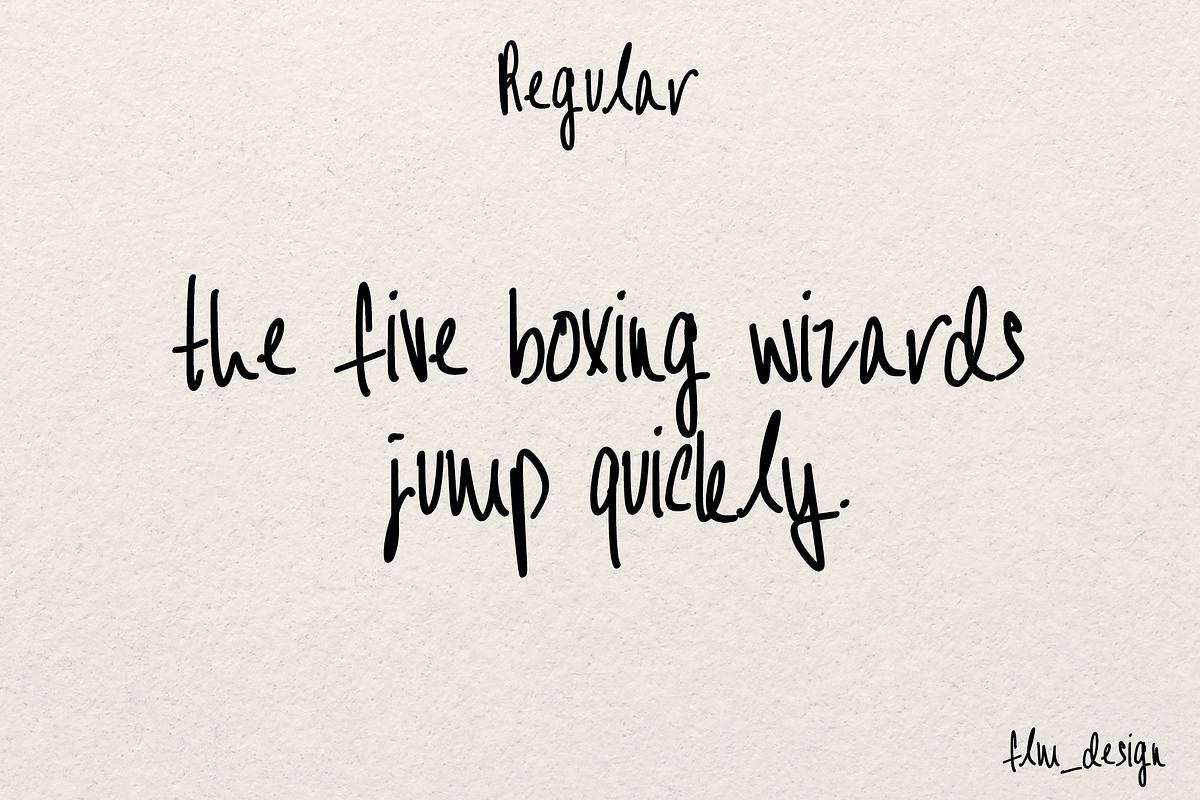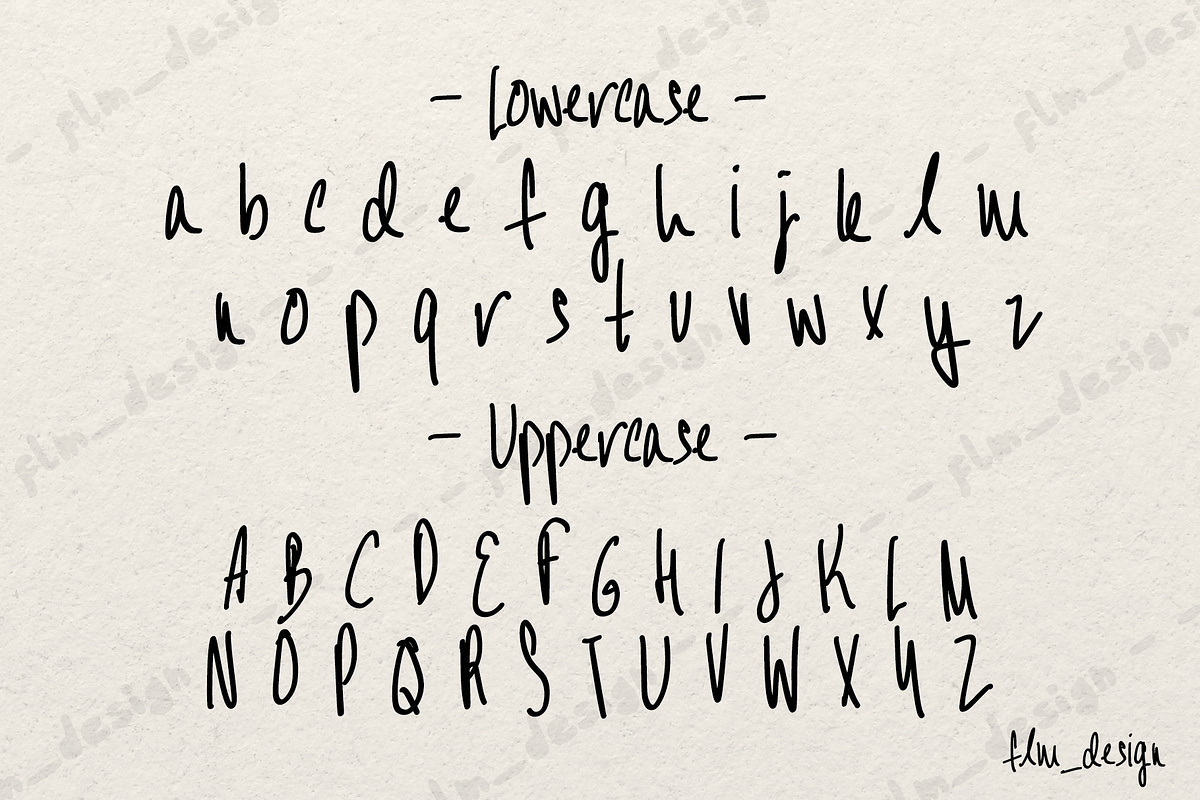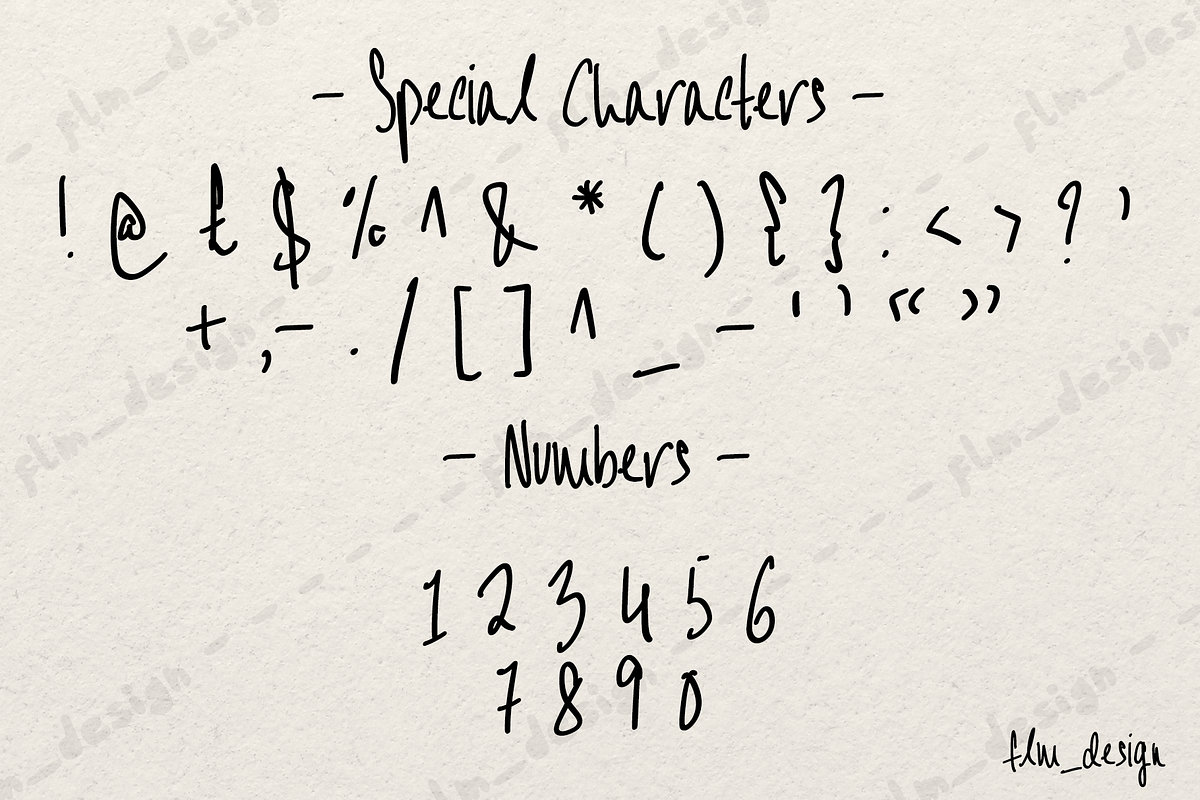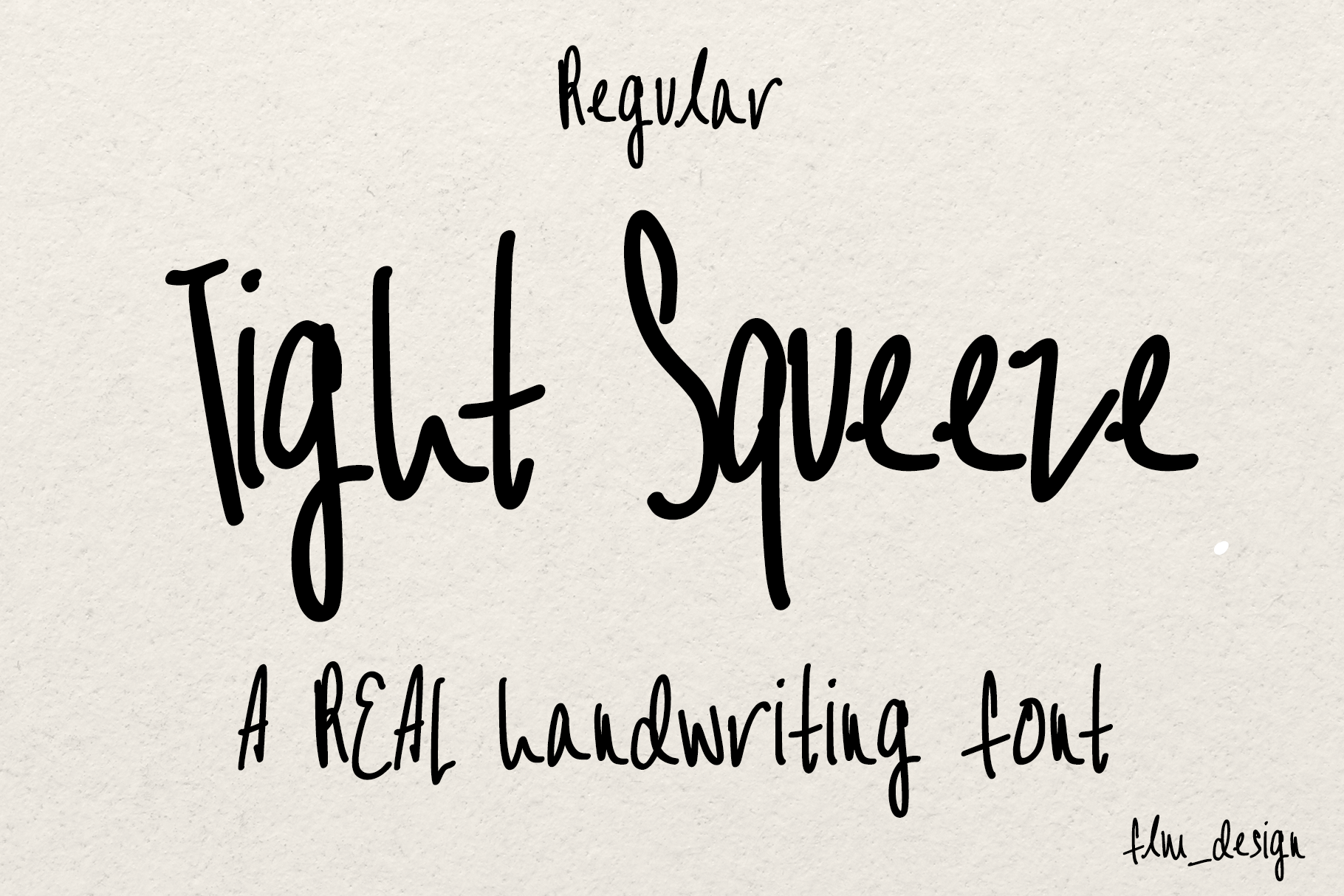
Tight Squeeze Real Handwriting Font
About Tight Squeeze is a casual, friendly, premium, hand-crafted realistic handwriting font which comes with Special Characters and numbers. It is compatible with all softwares and is a vector-based font.
Tight Squeeze can be used for anything from social posts, print, posters, cards, websites, business cards, name cards, letters, banners, the list is endless!